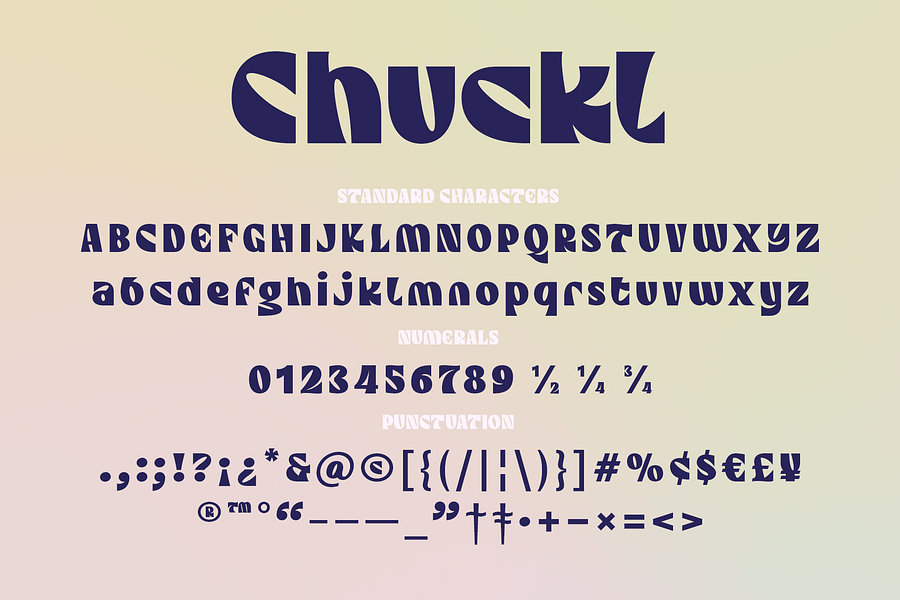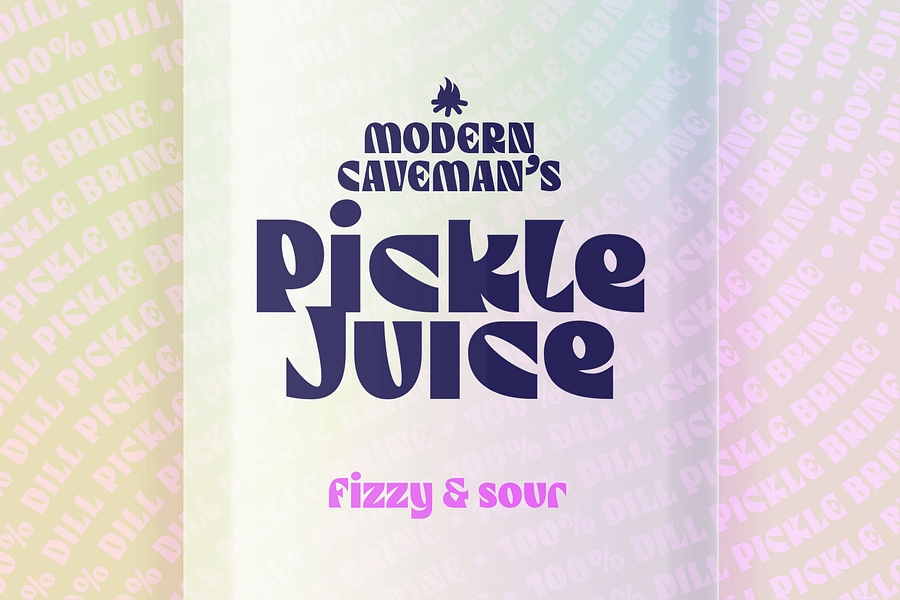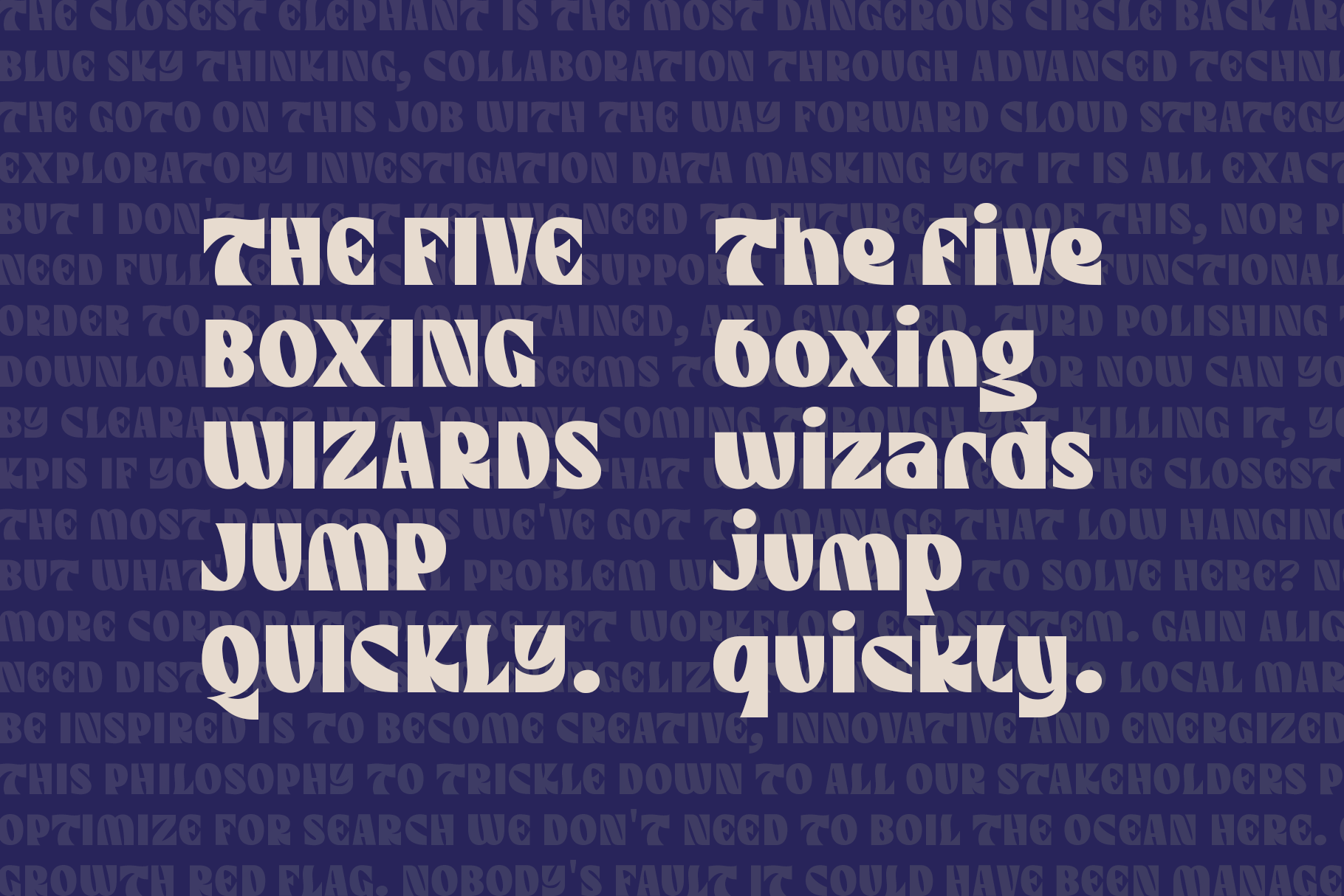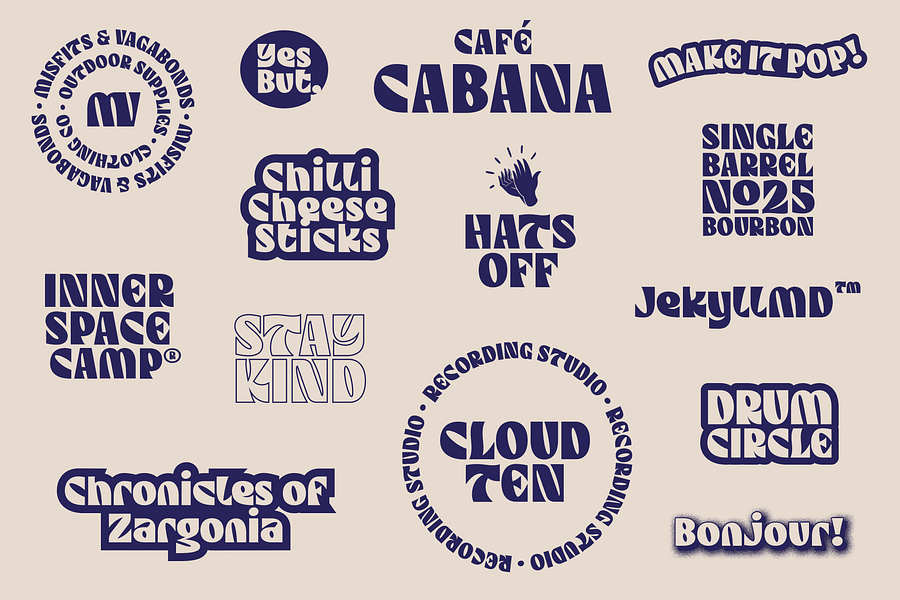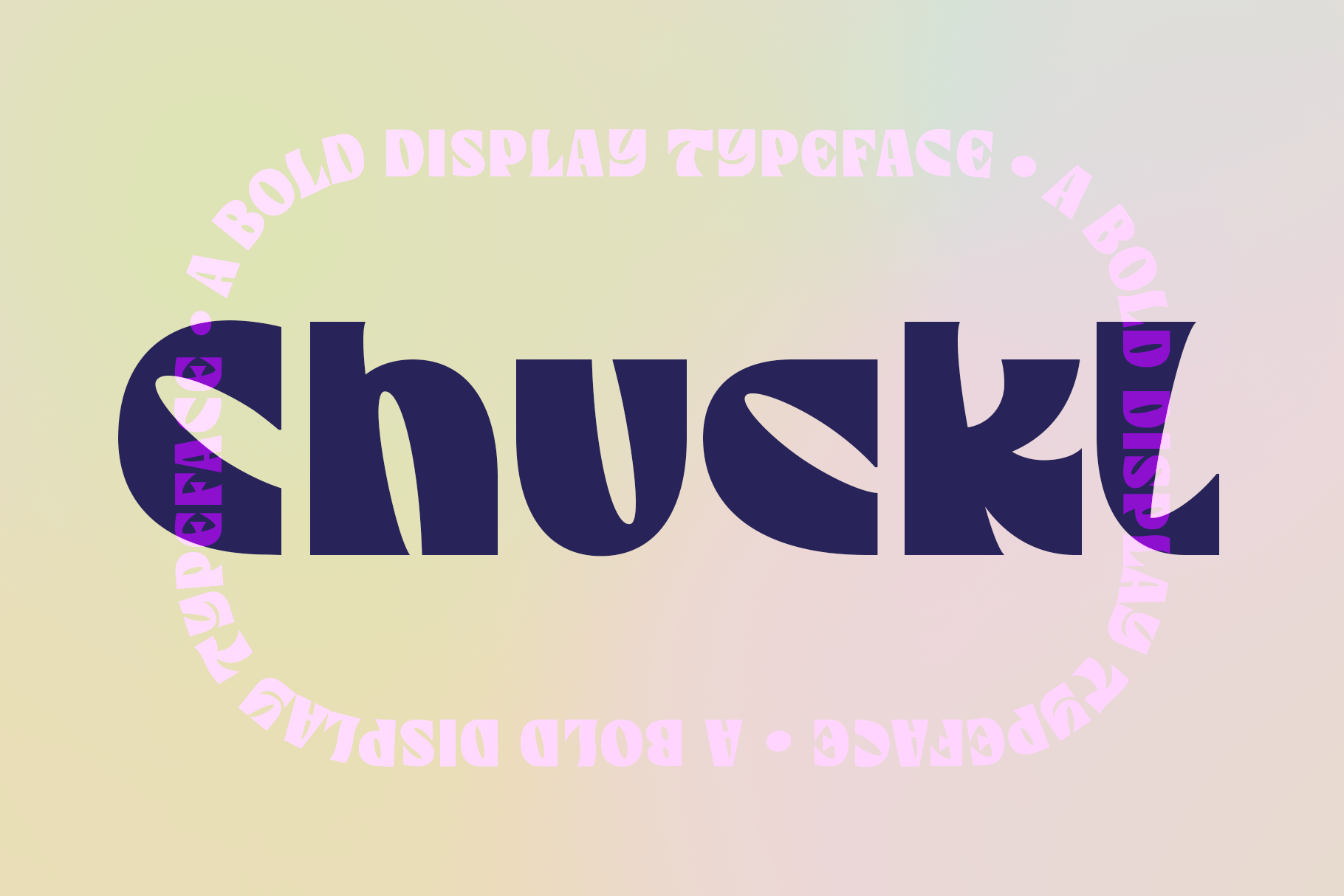
Chuckl | A Bold Display Typeface
Chuckl is a bold display typeface that is both fun and powerful, amusing yet impactful. It is visually striking and unique; unforgettable and un-ignorable. Excellent for brand identities, logos, packaging, posters and the like.
FEATURES
• Uppercase and Lowercase letter sets
• Numerals
• Extensive Punctuation
• Multilingual